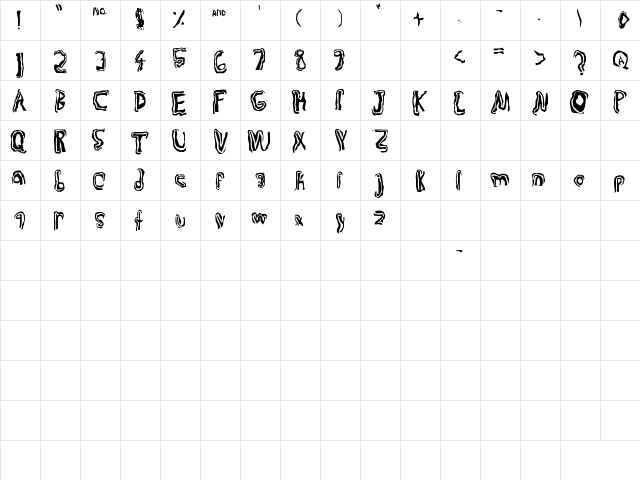
TruLogik Regular
Design Context for TruLogik Typeface
TruLogik is a composed and adaptable typeface that performs quietly and consistently across a wide range of design contexts.